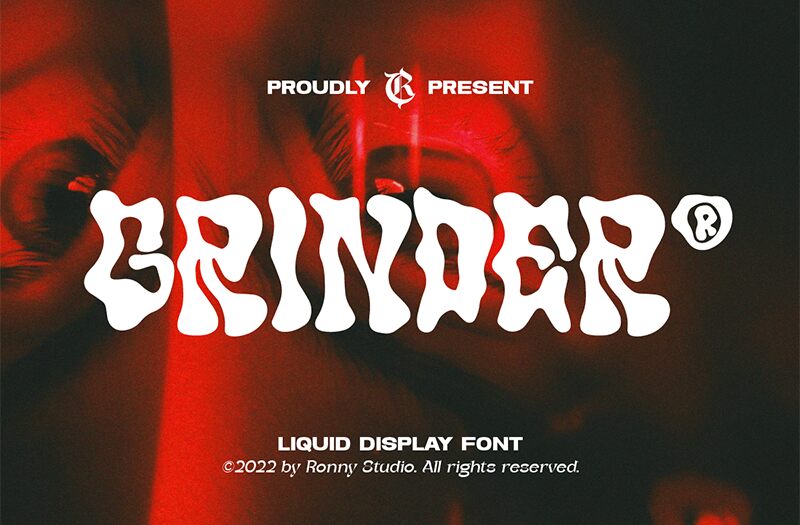
Grinder
Grinder, crafted by Ronny Studio, stands out as a bold display font with a groovy style that commands attention. Its semi-condensed width and hefty weight combine to create an aesthetic that is both playful and impactful. The Grinder font boasts voluptuous curves and flowing lines that are reminiscent of the psychedelic era, yet it maintains a modern edge suitable for contemporary design.
The unique character shapes are not just visually striking but also versatile, making Grinder an excellent choice for branding projects, poster design, music album covers, and any creative work where a touch of retro flair is desired. This font's ability to set the tone instantly while remaining legible makes it an invaluable asset for designers looking to make a strong visual statement.
With its distinctive blend of vintage charm and bold presence, the Grinder font is poised to elevate your project with its undeniably groovy essence.